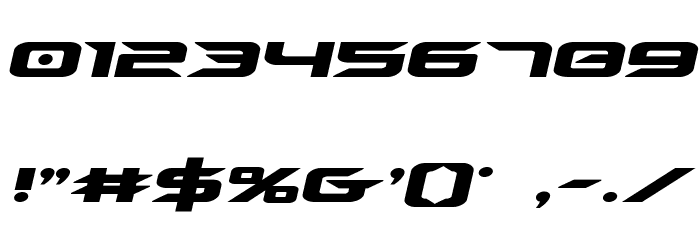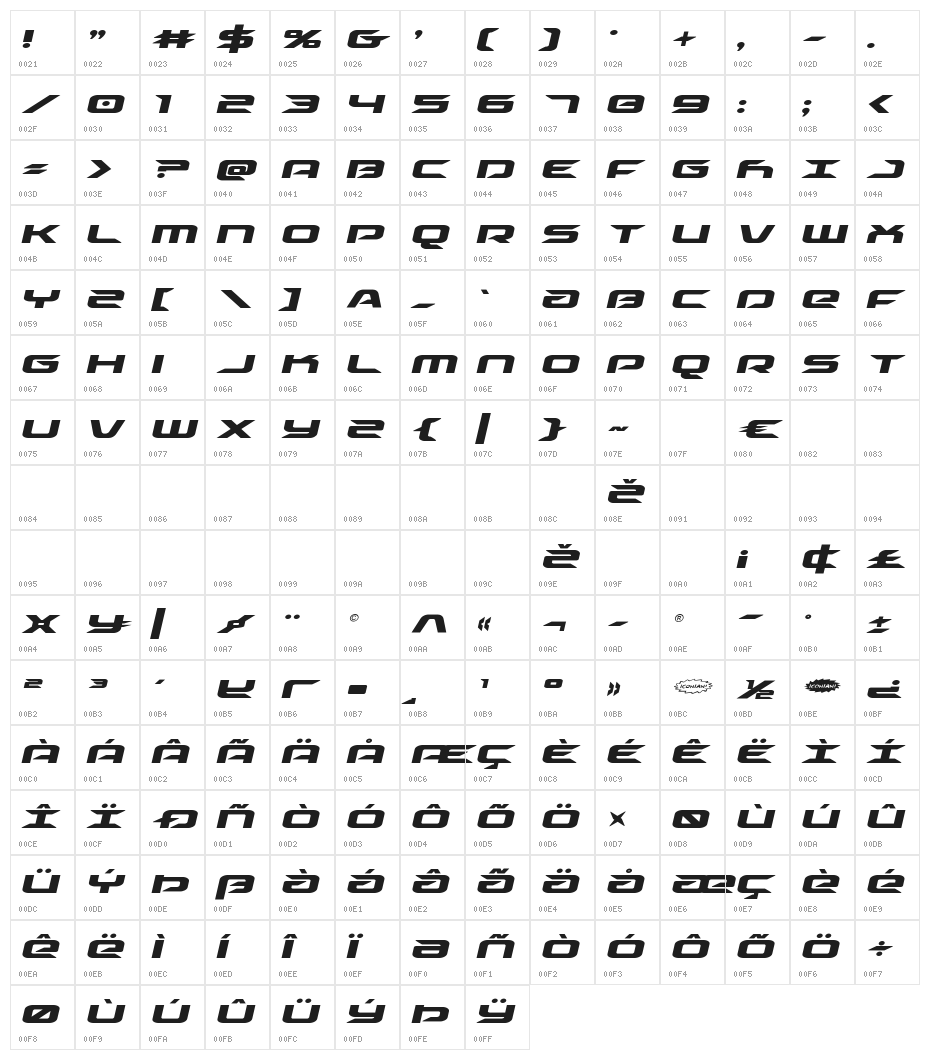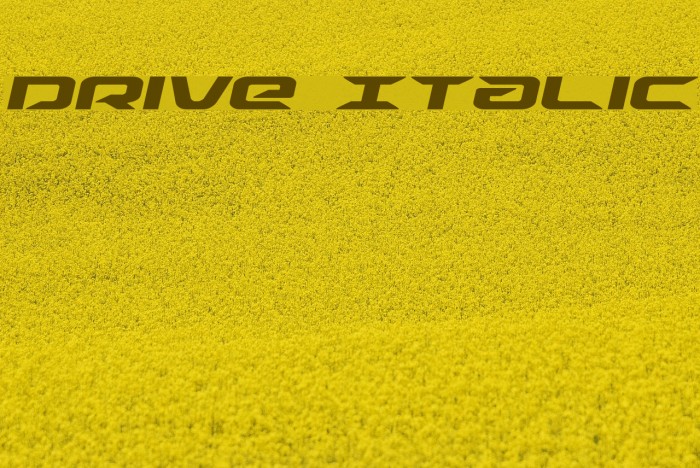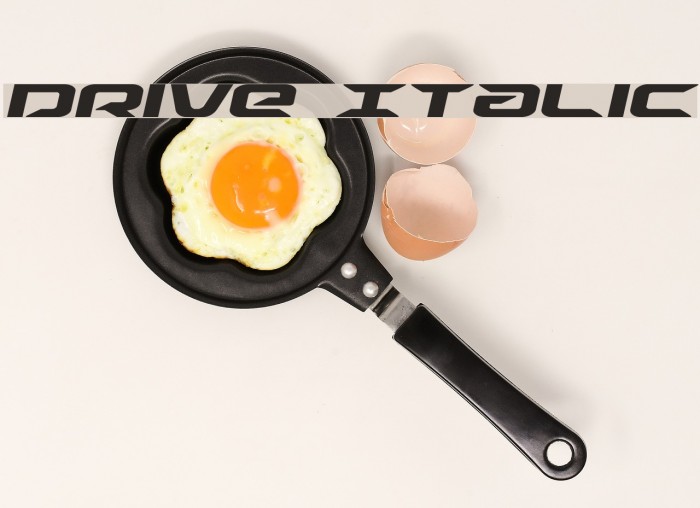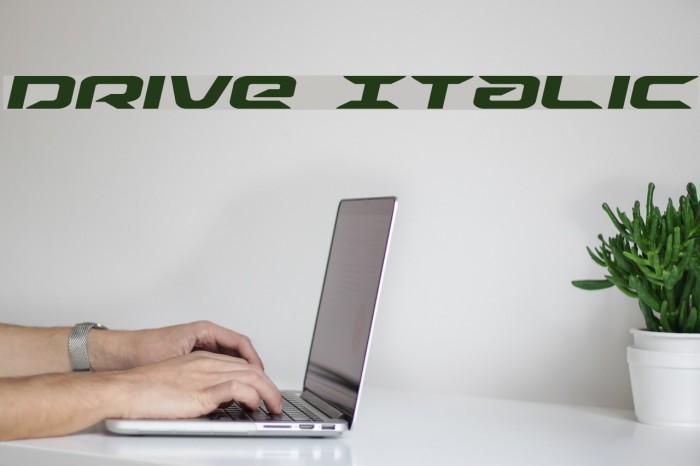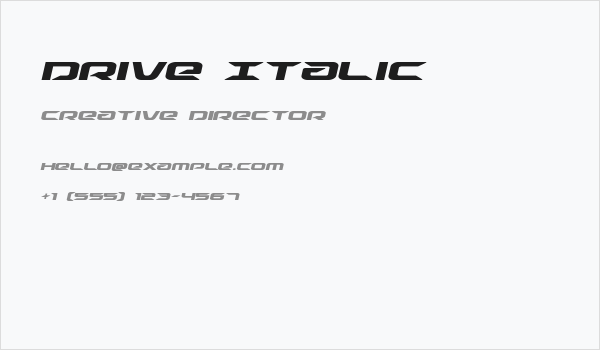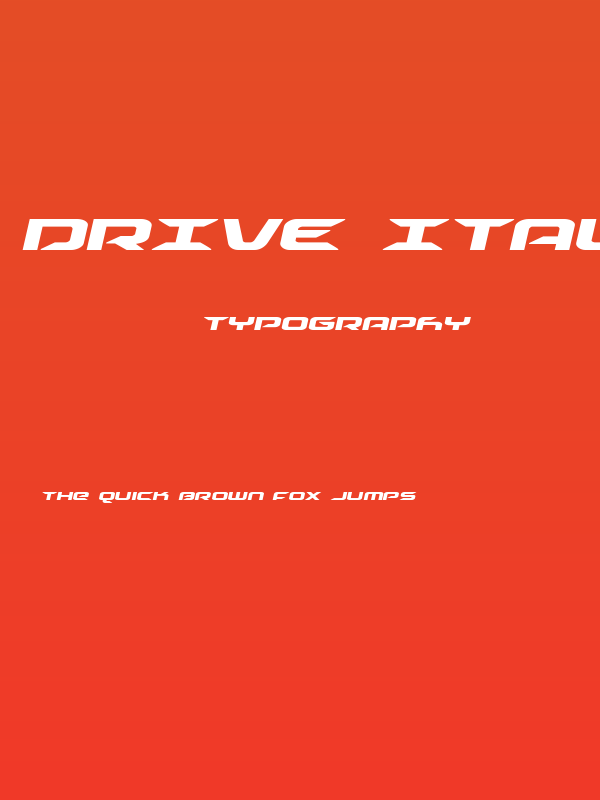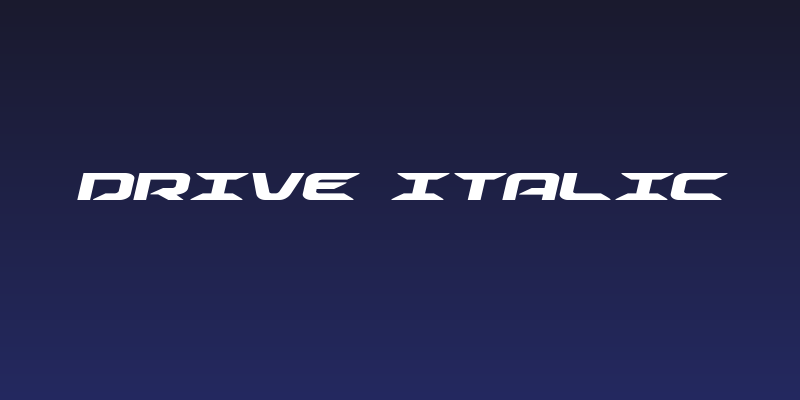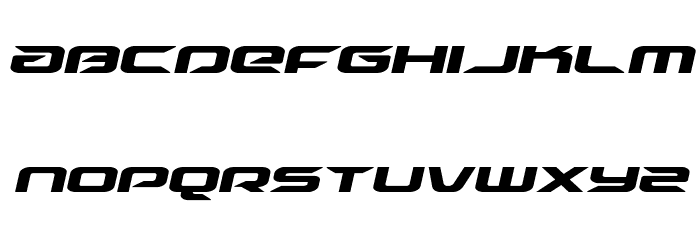
Drive Italic Font
Drive Italic Description
This font features a dynamic and futuristic design with a strong italic slant, giving it a sense of motion and speed. The characters are bold and angular, with sharp edges and a streamlined appearance. The uppercase and lowercase letters maintain a consistent style, emphasizing geometric shapes and a modern aesthetic. The numerals and special characters follow the same design principles, ensuring uniformity across all glyphs. This font is ideal for projects that require a bold and energetic look, such as automotive branding, sports team logos, or technology-related designs.
| Use Case | Logos, Headlines, Branding |
| Proposed Projects | Ideal for automotive branding, sports team logos, technology designs, and dynamic advertising. |